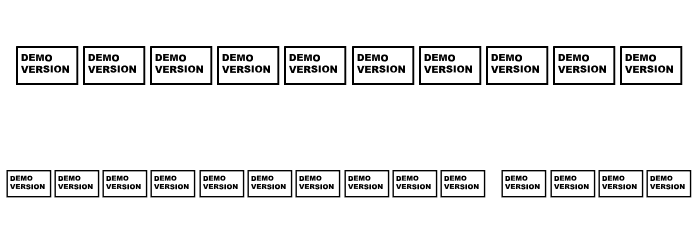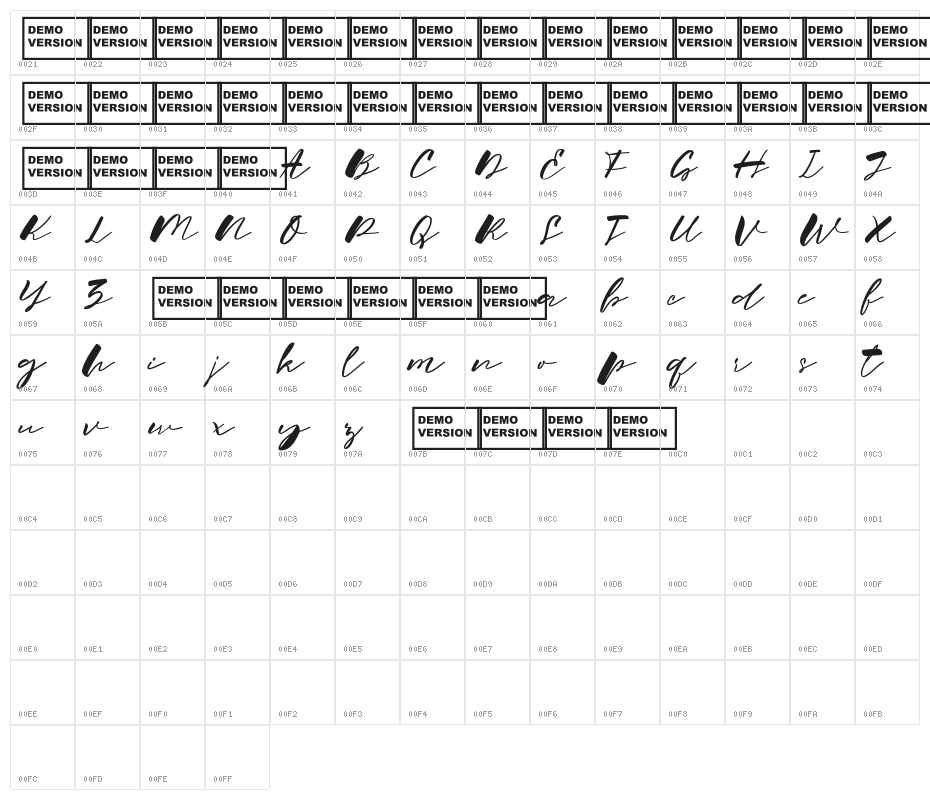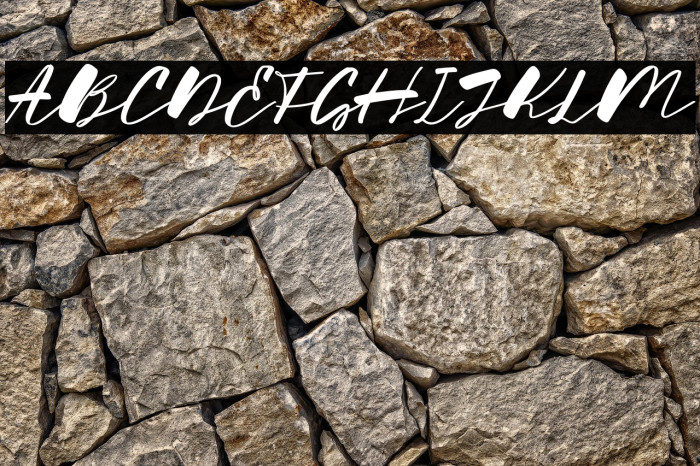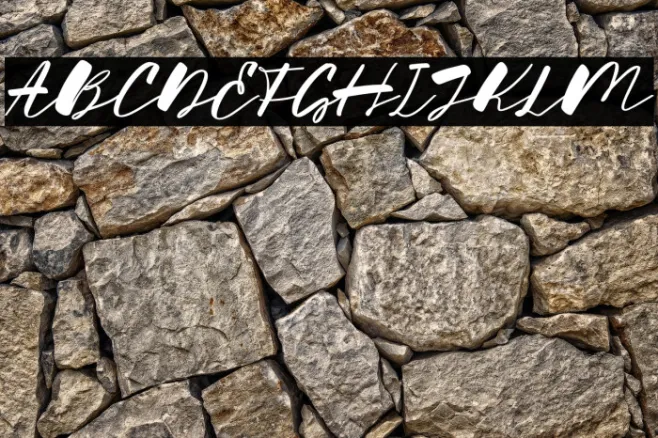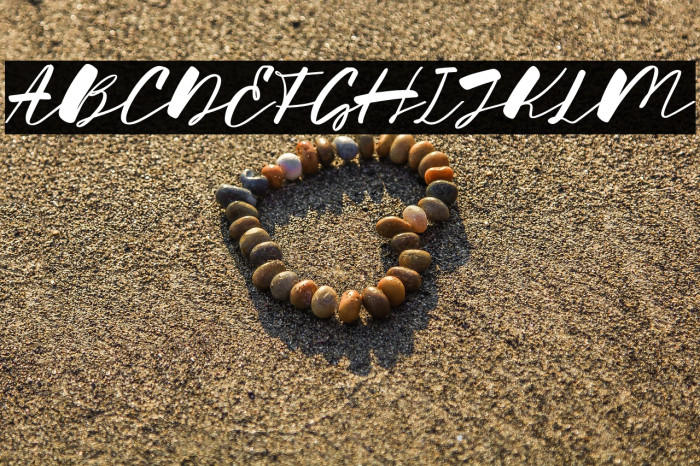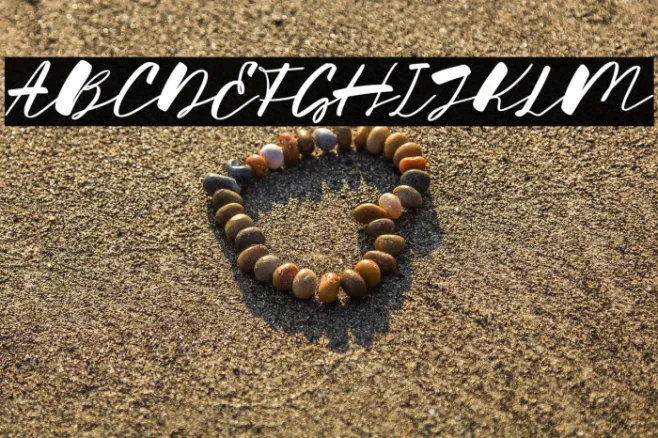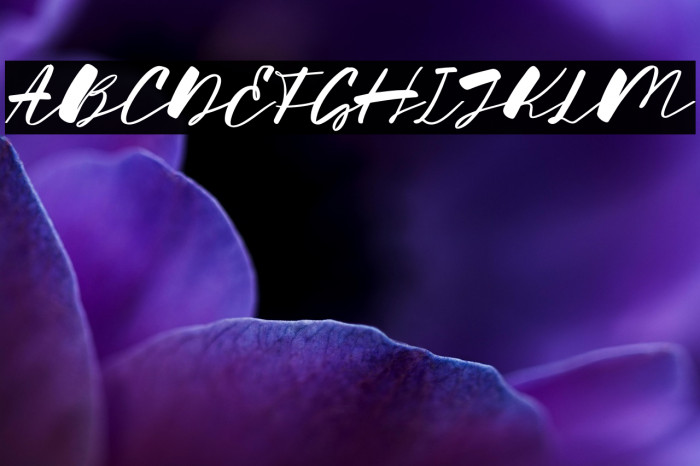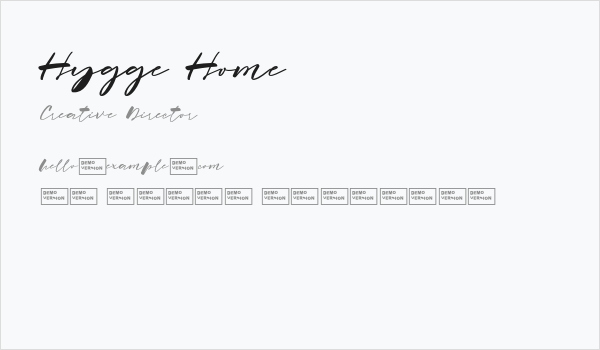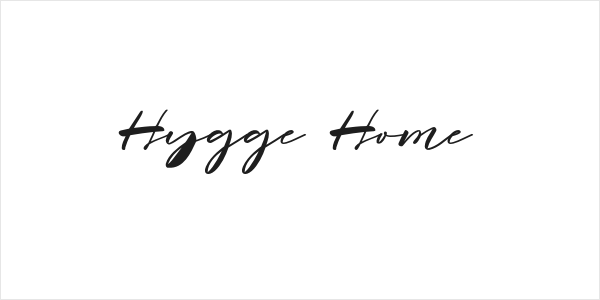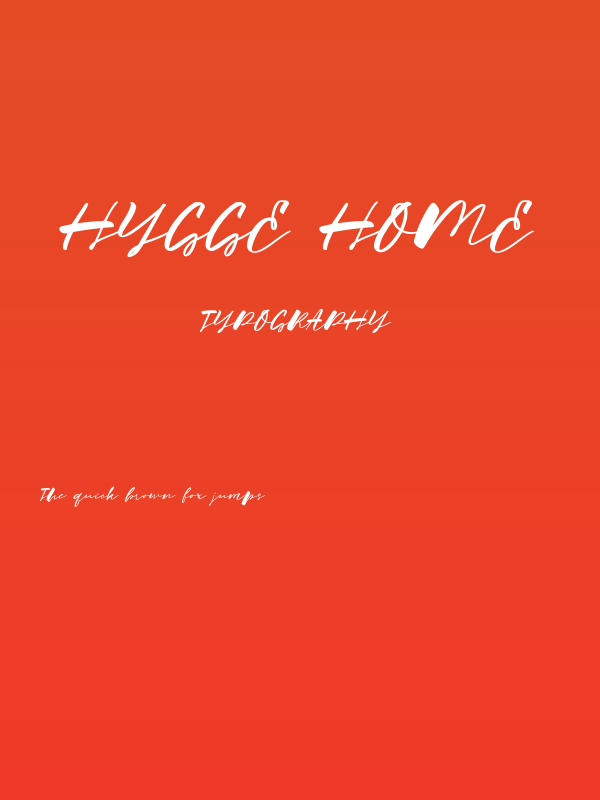
Hygge Home Font
Hygge Home Description
This font features a flowing, cursive style with a modern touch. The letters are elegantly connected, creating a seamless and fluid appearance. The strokes vary in thickness, adding a dynamic and lively feel to the text. The uppercase letters are bold and prominent, while the lowercase letters maintain a graceful and consistent flow. This font exudes a sense of sophistication and creativity, making it ideal for projects that require a personal and artistic touch. The overall design is both stylish and versatile, suitable for a wide range of applications.
| Proposed Projects | Ideal for wedding invitations, branding, social media graphics, and creative projects. |